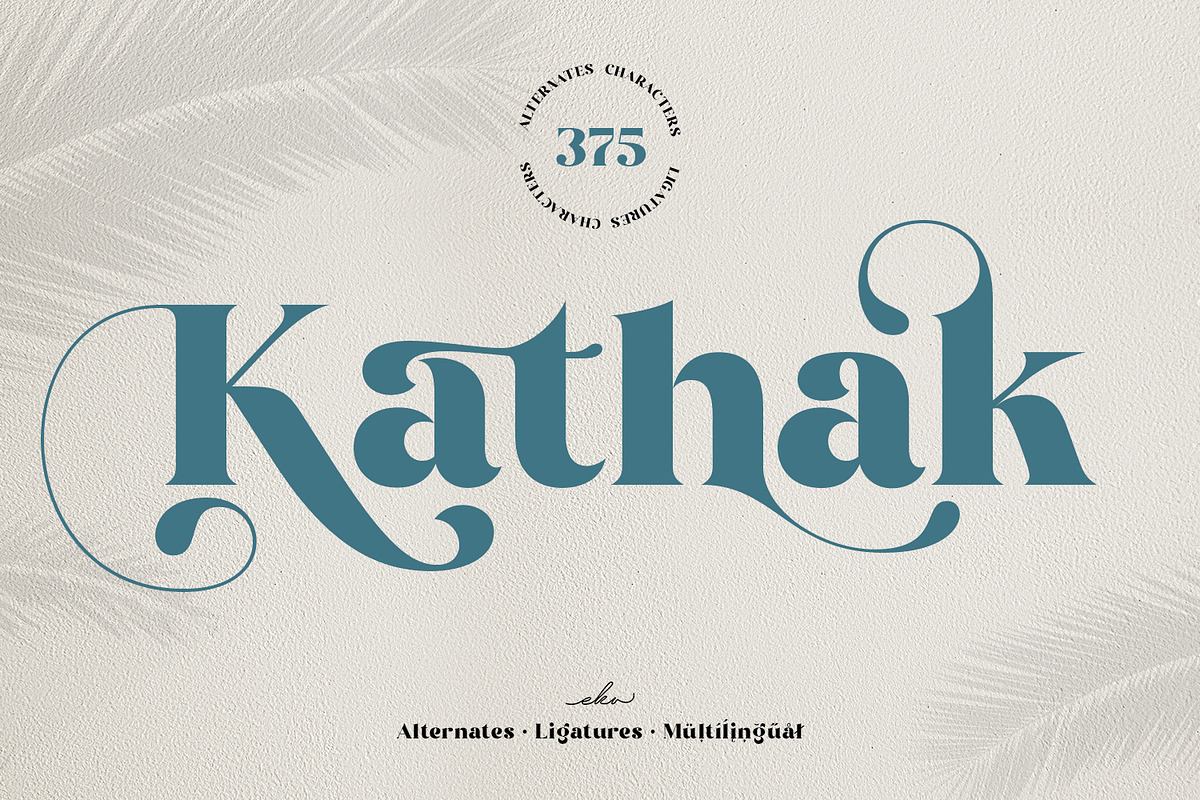
Kathak - Modern Classy Serif Font Free Download
Kathak – Modern Classy Serif Font Free Download is a sophisticated typeface that blends traditional serif elegance with a modern twist. Ideal for fashion branding, editorial layouts, wedding designs, and upscale packaging, Kathak offers graceful curves and refined details that elevate any visual project. Please note that you must purchase this font for commercial use, but it is available as a free download for testing purposes. Add timeless charm and stylish professionalism to your designs with Kathak – Modern Classy Serif Font Free Download, and make a lasting impression with every word.